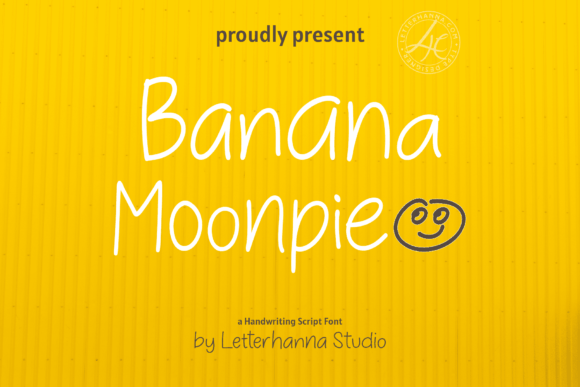
Welcome to the enchanting realm of Banana Moonpie Font, a typographic masterpiece that ignites imagination and brings a playful touch to your creative projects. This captivating script font, crafted by the talented letterhanna, is a symphony of handwritten charm and sans serif clarity, creating an irresistibly delightful and adaptable font that lives up to its whimsical name. Banana Moonpie is not just a font; it's an experience that transports you to a world of endless creativity and fun.
Unleash your inner child and let the playful spirit of Banana Moonpie dance across your designs. The font's unique characteristics, from its charming curves to its energetic strokes, add an irresistible touch of whimsy to any project,æ— è®ºæ˜¯é‚€è¯·å‡½ã€�è´ºå�¡è¿˜æ˜¯ç¤¾äº¤åª’体帖å�。
Step into a world where words come alive, where every letter tells a story, and where your creativity knows no bounds. With Banana Moonpie Font, you have the power to transform ordinary text into captivating expressions of joy and wonder. Embrace the magic of this font and let your imagination soar.
This font is an expression of creativity, a celebration of individuality, and a gateway to a world where anything is possible. Let Banana Moonpie Font inspire you to create projects that ignite your passions, engage your audience, and leave a lasting impression. Dive into the playful world of Banana Moonpie Font today and discover the endless possibilities that await you.